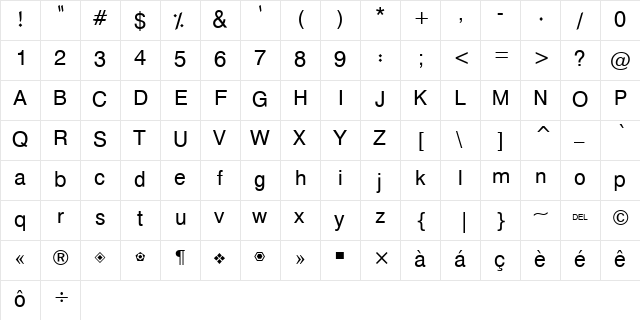
Hacen Casablanca Light Regular
| Foundry | Muhammad Hacen |
| Designer | Muhammad Hacen |
Design Context for Hacen Casablanca Light Typeface
Hacen Casablanca Light is a composed and adaptable typeface that performs quietly and consistently across a wide range of design contexts. The delicate stroke weight brings airiness and refinement to layouts.